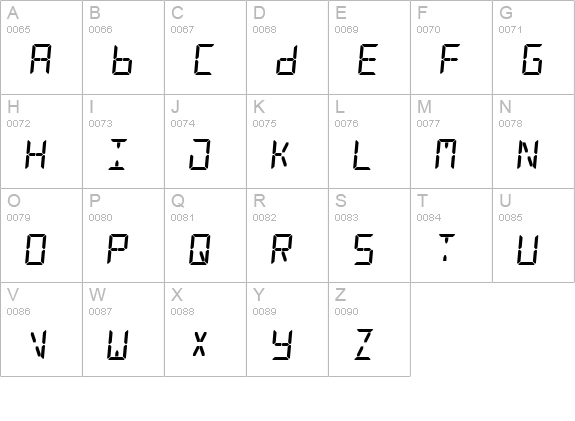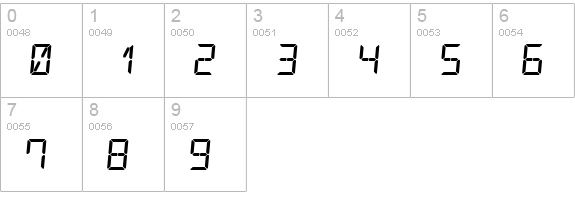
Digital Counter 7 Italic is a distinctive, italic variant in the Digital typeface family \xE2\x80\x94 well suited to design and typography projects.
Digital Counter 7 Italic font is a modern and stylish typeface that is perfect for adding a touch of sophistication to any digital project. Its sleek and futuristic design captures the essence of technology and innovation, making it ideal for websites, apps, and digital displays. The italicized version of Digital Counter 7 adds a subtle twist to the font, giving it a dynamic and energetic feel. The slanted letters create a sense of movement and excitement, making it perfect for adding emphasis or creating eye-catching headlines. The versatility of Digital Counter 7 Italic font is one of its greatest strengths. Whether you're designing a sleek and minimalist website or a high-tech interface, this font will bring a unique and professional look to your project. Its clean and crisp letterforms ensure legibility, even at small sizes, making it suitable for both display and body copy. One of the best things about Digital Counter 7 Italic font is that it is freely available to download at FontsMarket.com. You can easily access this font and start using it in your designs without any limitations or restrictions. Whether you're a professional designer or a hobbyist, this free font is a valuable addition to your collection. So why wait? Download Digital Counter 7 Italic font today and elevate your digital designs to new heights of style and sophistication. With its sleek and futuristic design, this font is sure to make a lasting impression on your audience. Get creative and let Digital Counter 7 Italic font bring your digital projects to life.